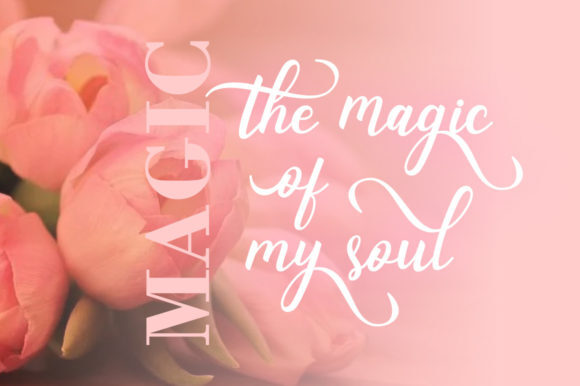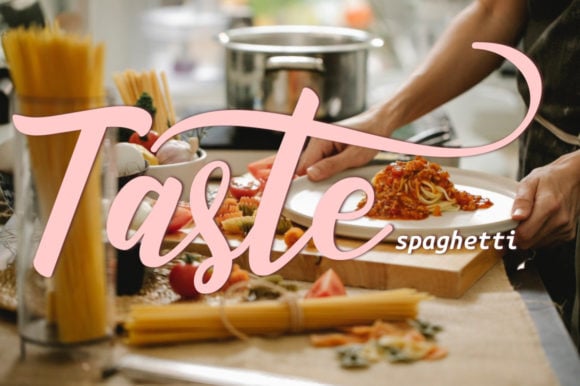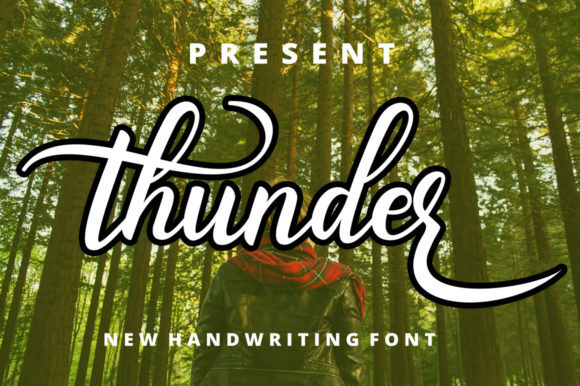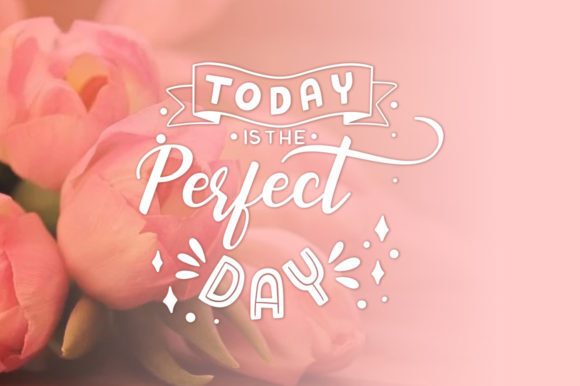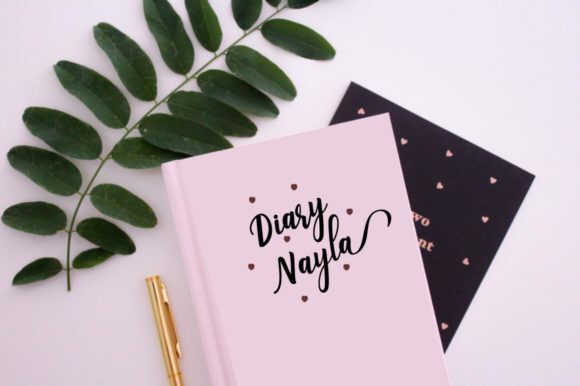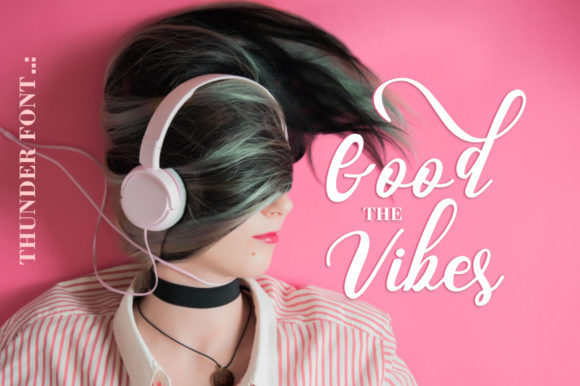
Thunder Font
Thunder is a stylish and modern handwritten font that beautifully combines a flowing style with individually charming characters! This font is PUA encoded, which means you can access all of the glyphs and swashes with ease!